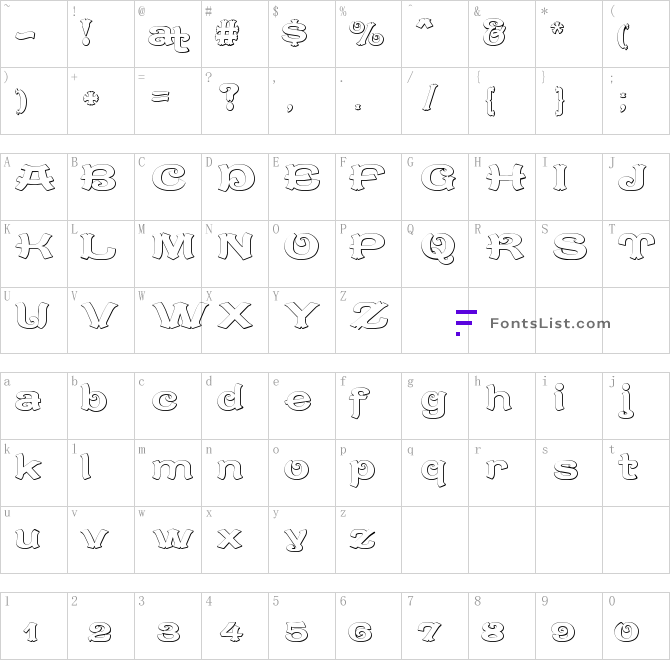
- Font Name:CaractereDoublet Beveled
CaractereDoublet-Beveled.ttf is a very beautiful artistic font, CaractereDoublet-Beveled.ttf is widely used in the design and printing of various books and pictures,CaractereDoublet-Beveled.ttf has a strong visual impact,CaractereDoublet-Beveled.ttf is a commonly used font in newspapers, magazines and books, and is used in posters, e-commerce Poster design, store design, logo design, font design and other fields.CaractereDoublet-Beveled.